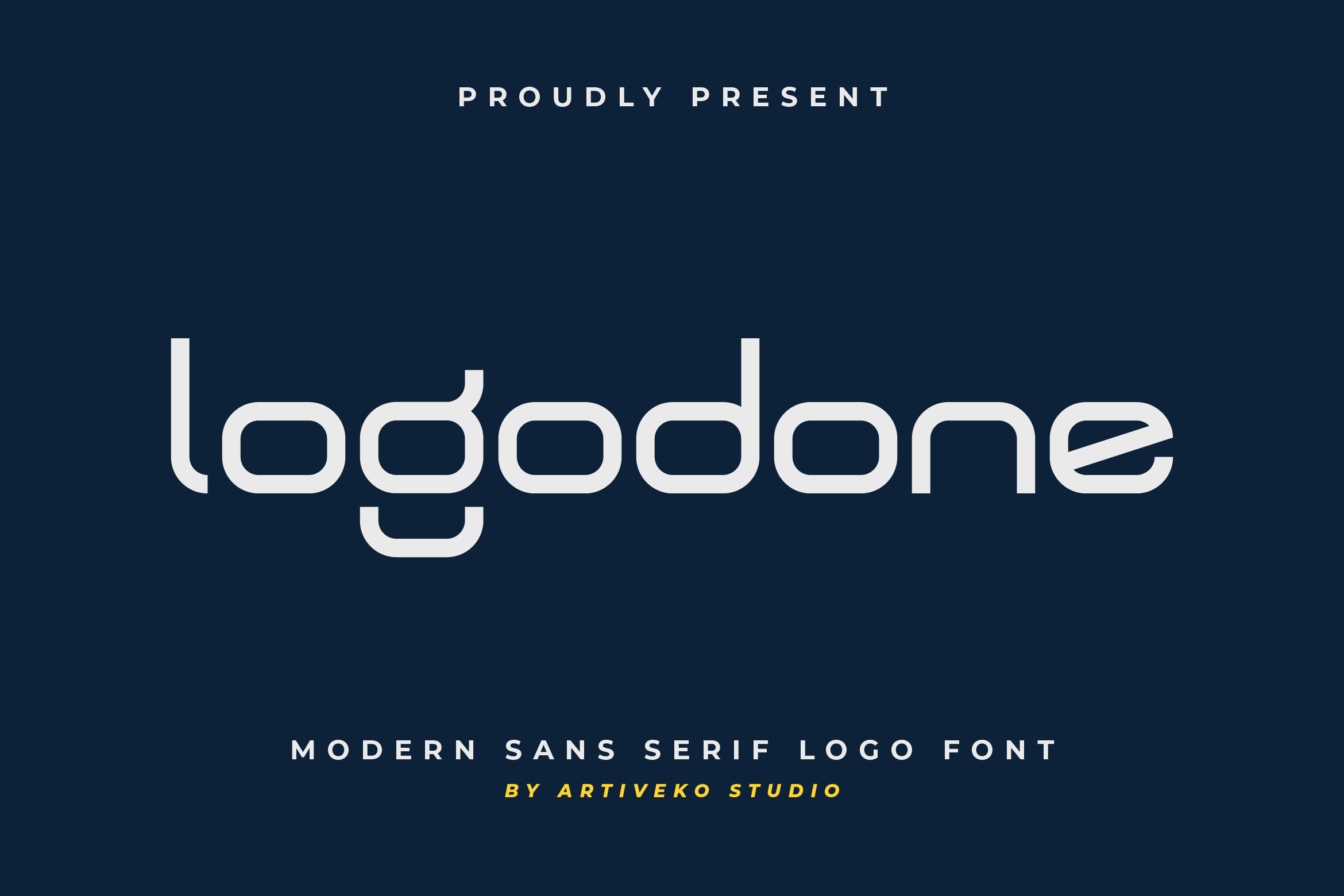
- Logodone Tech Sans Serif Font
Logodone is a bold and modern tech-inspired font created for designers who want to make a futuristic statement. Featuring sleek geometry, sharp edges, and a clean aesthetic, Logodone is perfect for technology branding, gaming visuals, sci-fi posters, UI/UX projects, and modern logo designs.
Its distinctive letterforms combine strength with precision, delivering a contemporary style that stands out in both digital and print applications. Whether used for bold headlines, branding, or high-tech product design, Logodone brings clarity with an innovative edge.
The font includes uppercase and lowercase letters, numerals, punctuation, multilingual support, and stylistic alternates for creative flexibility.
Elevate your design with Logodone — the tech font that fuses futuristic energy with minimalist sophistication.